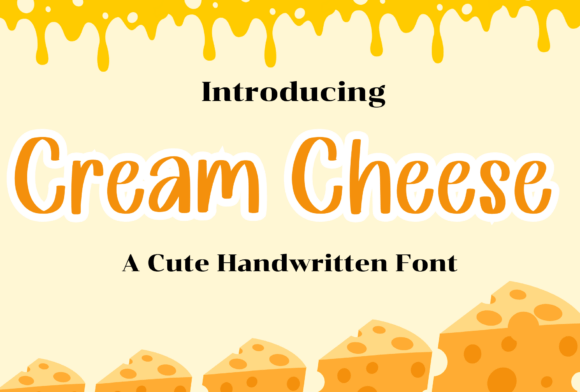
Discover the Delicious Charm of the Cream Cheese Font
Remember the moment when you stumbled upon a quaint bakery that offered the perfect combination of taste and ambiance? The way the aroma of freshly baked pastries wafted through the air, inviting you to indulge in a delightful treat? For designers, that moment is similar, but with a digital twist. It’s the instant when you discover a font that perfectly captures the essence of warmth and charm, making your designs irresistible to the senses.
That’s where the Cream Cheese Font comes in – a charming and playful handwritten font that effortlessly combines smooth, flowing strokes with a touch of casual elegance. Whether you’re working on branding, social media graphics, product packaging, or heartfelt invitations, this font is sure to bring a personal and inviting feel to your projects. As a designer, you’ll find the Cream Cheese Font to be a valuable addition to your toolkit, allowing you to craft designs that truly connect with your audience.
Cream Cheese Font Key Features
- Font Family: Cream Cheese is a display font, part of a larger font family that includes various styles and weights.
- Unique Characteristics: Features a unique, hand-drawn design with a creamy texture, reminiscent of a cheese spread, and a playful, whimsical feel.
Designer Review: Cream Cheese Font
Overall, I think Cream Cheese Font is a unique and eye-catching font that can add a touch of whimsy to your designs. ✨ The font’s playful, cursive script makes it perfect for titles, headings, and other display text where you want to create a sense of excitement or curiosity.
Here are some things that I think work well:
- ✨ The font’s quirky, handwritten feel is perfect for adding a touch of personality to your designs.
- ✨ The font’s legibility is surprisingly good, considering its cursive script.
- ✨ The font’s versatility means it can be used for a wide range of designs, from food labels to marketing materials.
- ⚠️ The font may not be suitable for body text or large blocks of text, as its cursive script can be difficult to read in certain situations.
- ⚠️ The font’s quirky feel may not be to everyone’s taste, so be sure to test it with your target audience before using it in a design.
Overall, I think Cream Cheese Font is a fun and creative font that can add a lot of personality to your designs. Just be sure to use it judiciously and in the right situations.
Cream Cheese Font: A Practical Application Guide
To get the most out of the Cream Cheese Font, use it in combination with bold or italic text for emphasis. Experiment with different font sizes and styles to create a unique visual effect.
The Cream Cheese Font is commonly used in:
- Casual blog posts or social media graphics.
- Food or dessert-themed designs.
- Playful or whimsical branding materials.
Alternatives to Cream Cheese Font for Designers
Lobster is a script font with a casual, handwritten feel. It’s ideal for use in titles, headings, and body text where a friendly, approachable tone is desired. Compared to Cream Cheese Font, Lobster has a more refined, elegant look and is often used in high-end designs.
Great Vibes is a modern script font with a relaxed, beachy vibe. It’s perfect for use in designs that require a carefree, laid-back feel. Compared to Cream Cheese Font, Great Vibes has a more fluid, organic look and is often used in designs that need to evoke a sense of freedom and adventure.